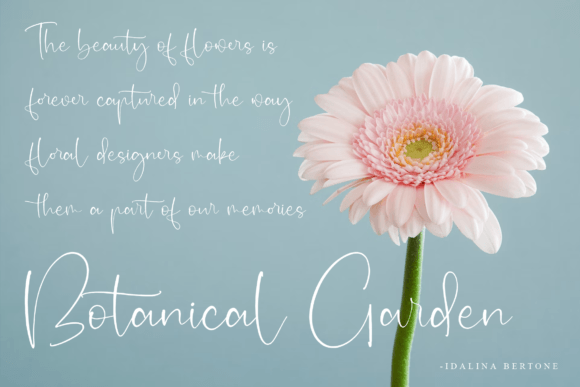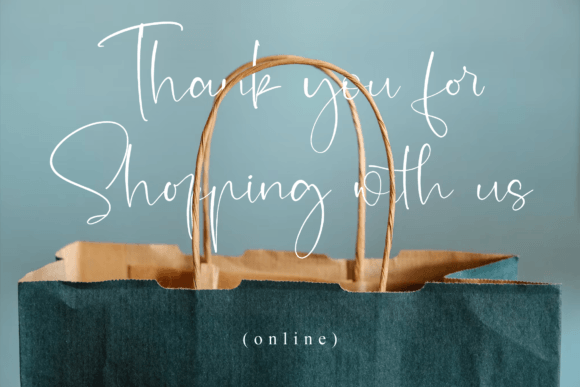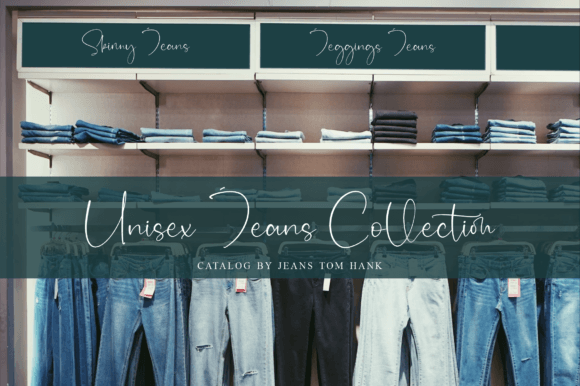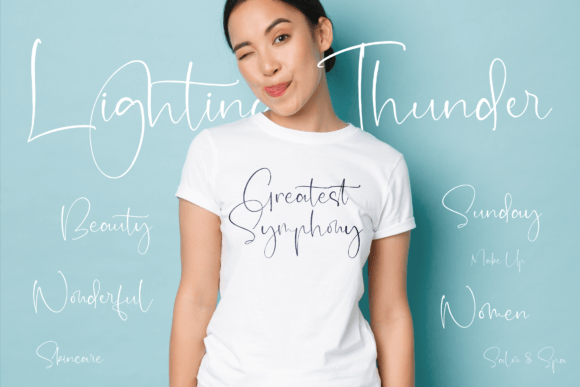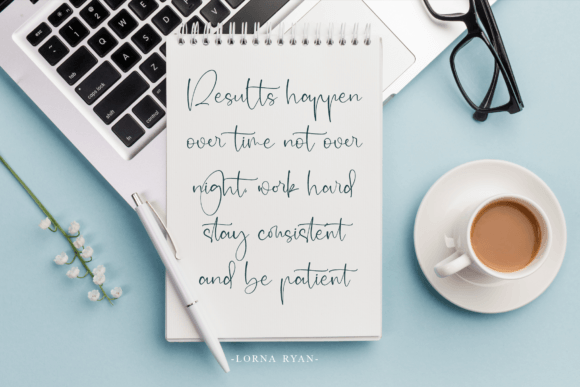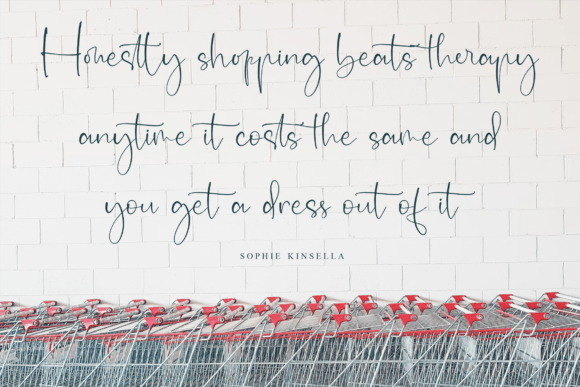
Eastherhood Font: Elevate Your Designs with Elegant Handwritten Signature
Are you a designer or crafter looking for a beautiful and elegant handwritten signature font to elevate your projects? Look no further than Eastherhood Font, a stunning script font from Letterfabric Studio. In this article, we’ll explore the features and benefits of Eastherhood Font and how it can add a touch of sophistication to your designs.
What is Eastherhood Font?
Eastherhood Font is a handwritten signature font designed by Letterfabric Studio, a team of talented designers passionate about creating unique and beautiful typography. This elegant script font is perfect for adding a personal touch to your designs, making them stand out from the crowd.
Key Features of Eastherhood Font
- Elegant Handwritten Style: Eastherhood Font boasts a beautiful, flowing handwritten style that’s perfect for creating sophisticated designs.
- Versatile: This font is suitable for a wide range of projects, including logos, branding projects, homeware designs, product packaging, mugs, quotes, posters, shopping bags, t-shirts, book covers, name cards, invitation cards, greeting cards, labels, photography, watermarks, and more.
- High-Quality: This font is designed with high-quality and clarity in mind, ensuring it looks great in any size or format.
Benefits of Using Eastherhood Font
So, why choose Eastherhood Font for your designs? Here are just a few benefits of using this stunning script font:
- Adds a Personal Touch: Eastherhood Font’s handwritten style adds a personal touch to your designs, making them more relatable and engaging.
- Enhances Brand Identity: This font can help create a unique and consistent brand identity for your business or personal projects.
- Increases Visual Appeal: The elegant and flowing style of Eastherhood Font can add visual interest to your designs, making them more eye-catching and memorable.
- Versatile and Adaptable: This font can be used in a variety of contexts, from digital designs to print materials, making it a versatile addition to your font library.
How to Use Eastherhood Font in Your Designs
Using Eastherhood Font in your designs is easy. Here are a few tips to get you started:
- Pair it with Other Fonts: Combine Eastherhood Font with other fonts to create a unique and visually appealing typography combination.
- Use it for Headlines and Titles: Eastherhood Font is perfect for creating eye-catching headlines and titles that add a touch of elegance to your designs.
- Add it to Your Brand Identity: Consider using Eastherhood Font as part of your brand identity, including your logo, website, and marketing materials.
Eastherhood Font is a beautiful and elegant handwritten signature font that’s perfect for designers and crafters looking to add a touch of sophistication to their projects. With its versatile and adaptable design, this font can be used in a wide range of contexts, from logos and branding projects to homeware designs and product packaging. Whether you’re looking to create a unique brand identity or simply want to add some visual interest to your designs, Eastherhood Font is a great choice.